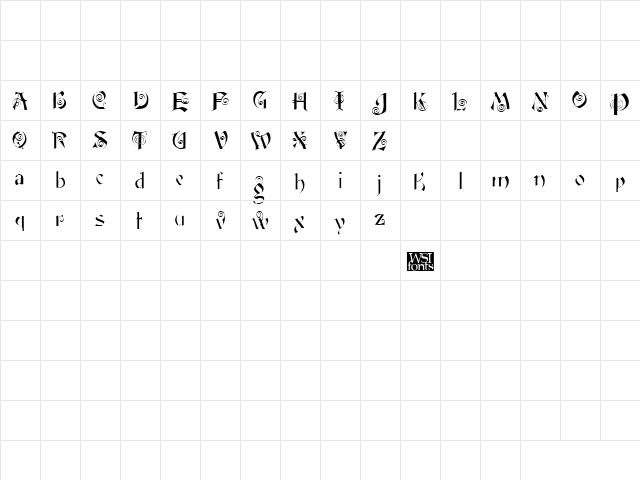
PT Fairy Scroll Display Regular
Design Context for PT Fairy Scroll Display Typeface
PT Fairy Scroll Display brings ornamental detail and strong personality to headlines and identities, where visual impact matters more than quiet functionality.
Font Pairing: Pair with a clean neutral sans-serif for body copy to let PT Fairy Scroll Display's character lead without overwhelming the composition.
Pro Tip: Use PT Fairy Scroll Display exclusively at display sizes — it was designed to be seen, not read at length. Let a neutral companion handle body copy.